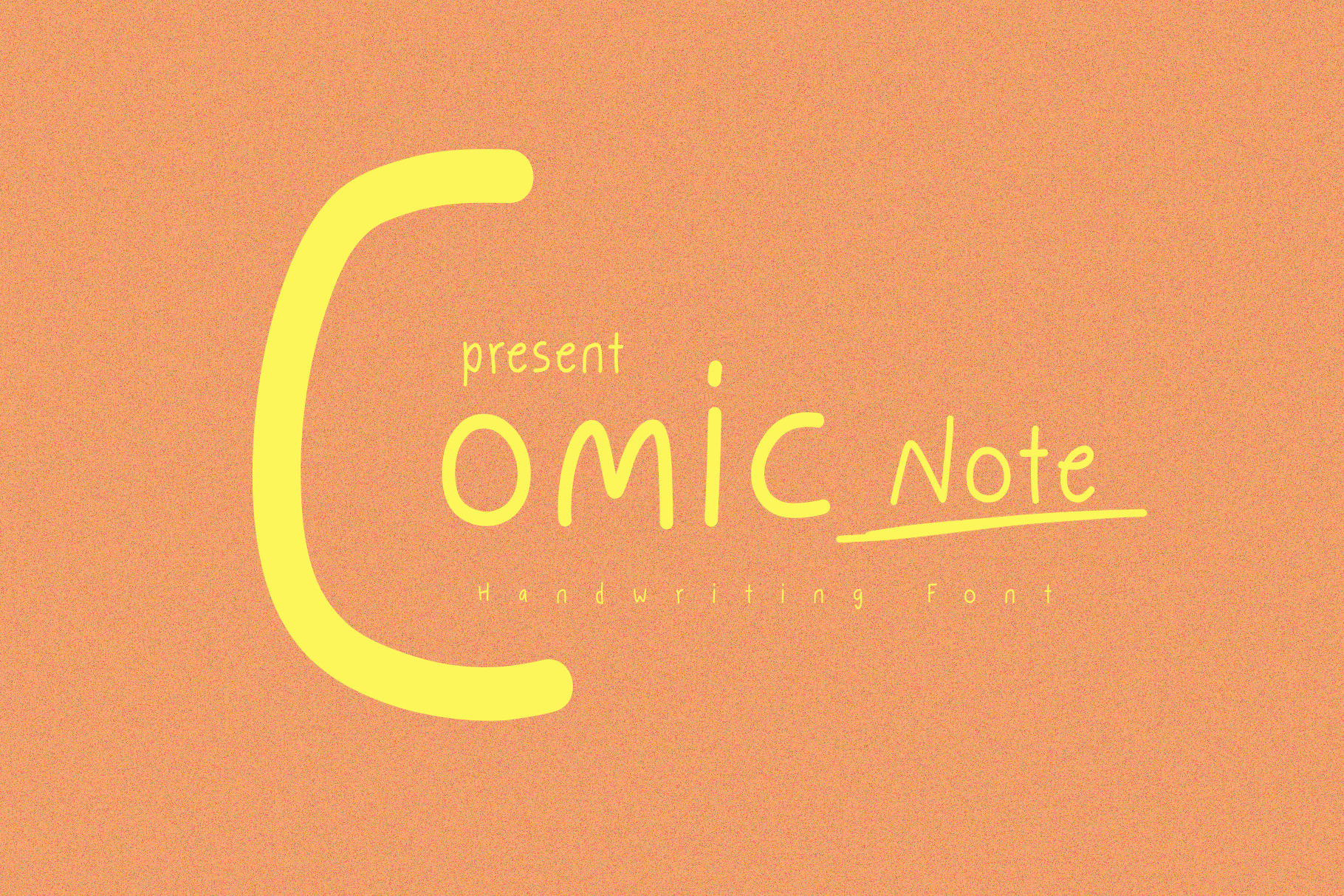
Comic Note a Handwriting Font
Comic Note is a charming font inspired by natural handwriting. It captures the essence of spontaneous and free-flowing strokes, giving a delightful and playful touch to your designs.
The history behind the creation of Comic Note font dates back to our fascination with the beauty of handwritten notes. We were inspired by the uniqueness and authenticity that hand-drawn elements bring to design projects. The font was born out of the desire to preserve the warmth and personal touch of natural handwriting in the digital world.
With Comic Note each letter and character is crafted to reflect the joy and creativity of hand-drawn doodles and notes. The irregular lines and endearing imperfections add character and evoke a sense of nostalgia, making it perfect for designs seeking a whimsical and friendly impression.
Comic Note is a versatile font that can be used for various projects, such as comics, children's books, greeting cards, social media posts, and more. It brings a sense of approachability and lightheartedness, captivating readers and adding a human touch to your designs.
Embrace the natural charm and creativity of Comic Note font in your design journey, and let it bring a smile to your audience's face with its playful and handwritten allure. May this font become a delightful addition to your creative toolkit, reminding us of the beauty in the art of writing by hand.